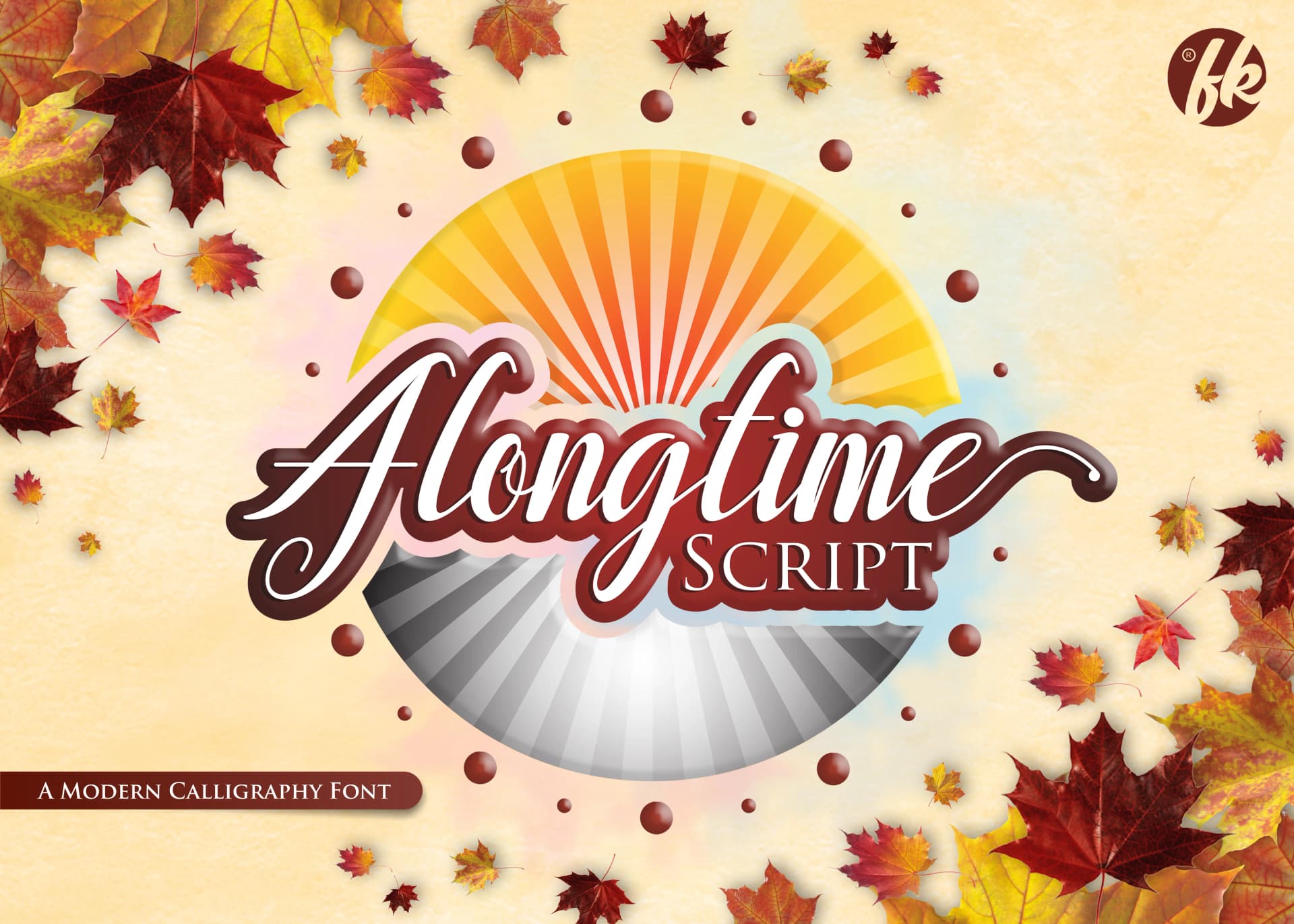
Alongtime Script Font by afredo.fk is a contemporary calligraphic script that embodies the emotional journey of anticipation and patience. Designed with flowing letterforms that feel authentic yet polished, this typeface brings genuine warmth to any project that requires a personal touch. The font's carefully crafted character set ensures consistent elegance whether displayed on screen or in print.
Wedding invitation suites benefit tremendously from this font's refined sophistication, creating memorable first impressions that set the tone for special occasions. Boutique brands harness its distinctive personality for luxury product labels and premium packaging design, where every letterform reinforces brand identity. Small business owners find it invaluable for logo design and comprehensive brand materials that communicate both professionalism and approachability. Hand-lettered wall art, personalized greeting cards, and custom stationery projects also showcase the font's natural beauty exceptionally well.
The script's connected strokes and carefully balanced letterforms deliver authenticity that mass-produced typefaces simply cannot replicate. With extensive character support suitable for diverse applications, Alongtime seamlessly transitions between digital designs, print materials, and hybrid projects. Whether crafting intimate correspondence or designing distinctive brand experiences, this elegant script provides the polish and personality your projects deserve. Explore Alongtime Script Font on Creative Fabrica and bring this thoughtful typeface to your creative collection.
Alongtime Script Font is a script font that shines as a display or heading face. Pair it with a clean sans-serif or serif font for body text β the contrast creates a clear hierarchy while the two styles stay balanced and easy to read.
Alongtime Script Font